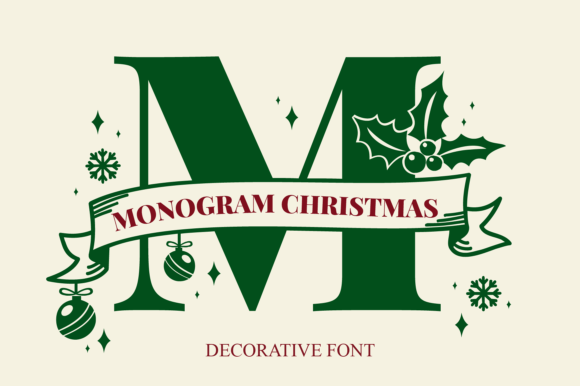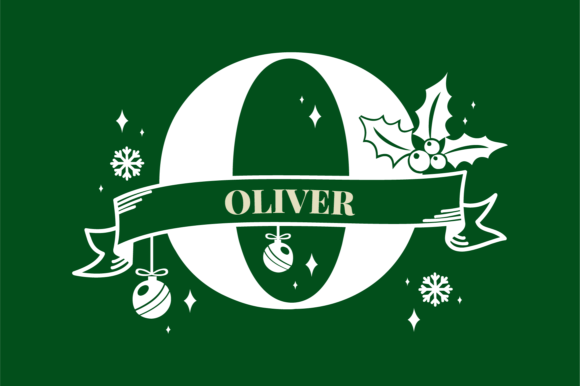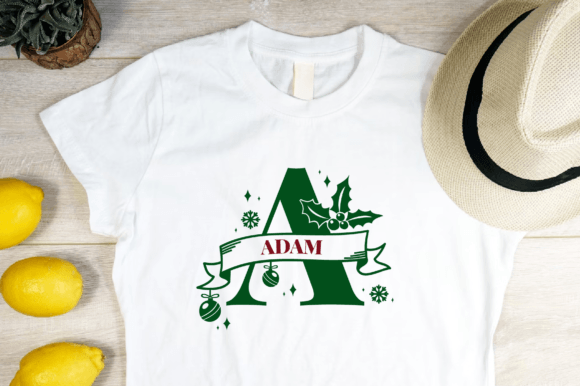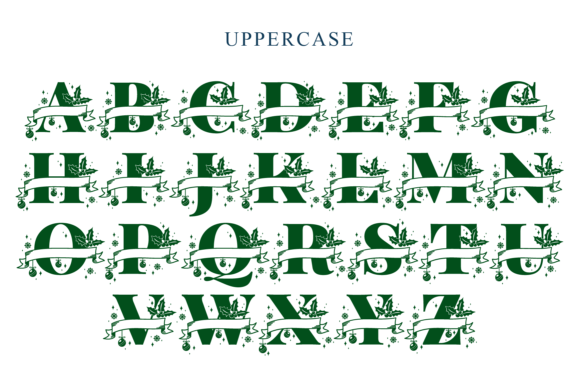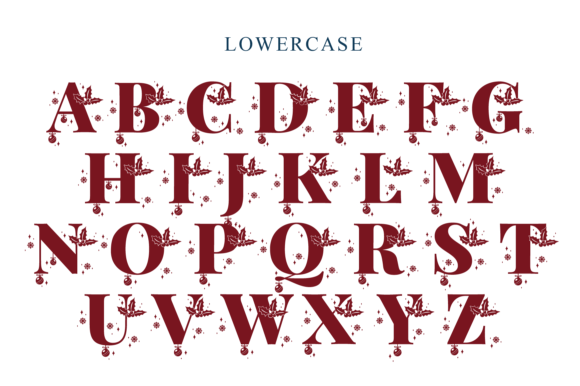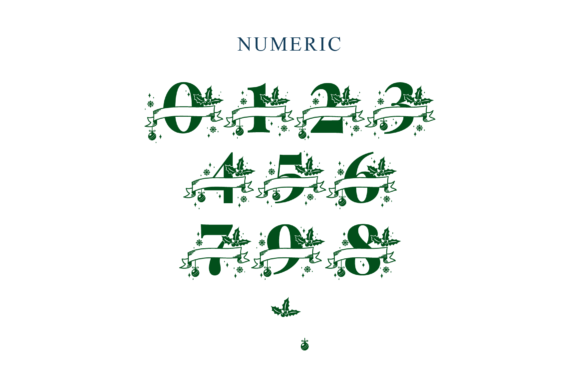
Monogram Christmas Font
Monogram Christmas is a festive font perfect for all your Christmas-themed designs. Each letter is beautifully decorated with holiday elements like holly leaves and ribbons, adding a cheerful touch to your projects. Ideal for t-shirts, greeting cards, stickers, and gift tags, this font brings a charming holiday spirit to any creation. Make your Christmas designs stand out with Monogram Christmas!